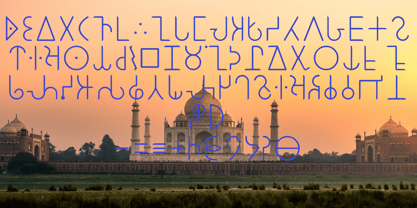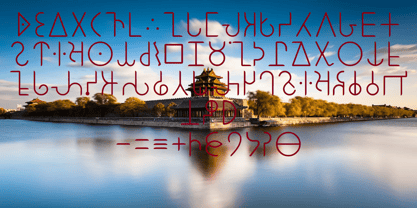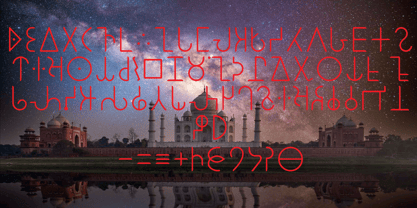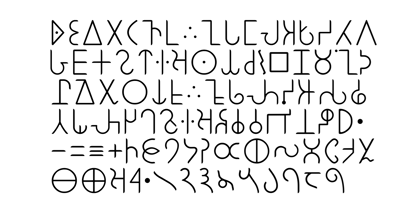
Ongunkan Brahmi Script
The Ongunkan Brahmi Script Font Family was designed by Osman Nuri ALKAN and published by Runic World Tamgacı. Ongunkan Brahmi Script contains 1 styles. More about this family
Brahmi is the earliest, most influential ancient Indian script, dating back to the 3rd century BCE (or earlier), serving as the ancestor to almost all modern South/Southeast Asian scripts. As an abugida, it combines consonants and vowels, largely written left-to-right, most famously used in Emperor Ashoka's edicts. Key Features of the Brahmi Script:
• Structure: An abugida where consonant characters include an inherent vowel (default 'a'). Vowel changes are marked by diacritics (mātrās).
• Direction: Typically written left-to-right, though early right-to-left examples exist.
• Decipherment: Decoded in 1836 by James Prinsep.
• Influence: Developed into northern (Gupta, Nagari) and southern (Pallava, Tamil-Brahmi) variations, ultimately impacting hundreds of scripts. Origins and Evolution:
• Historical Evidence: Clearly attested in the 3rd century BCE Ashokan inscriptions.
• Theories: Scholars have debated its origins, with some suggesting a derivation from Semitic scripts, while others argue for an earlier, indigenous development from Indus Valley graffiti or early pottery, dating back to as early as the 6th century BCE.
• Evolution: By the 6th century CE, it diverged into regional variants. Northern Brahmi evolved into the Gupta script, leading to Devanagari, while Southern Brahmi produced scripts for Dravidian languages and Southeast Asia